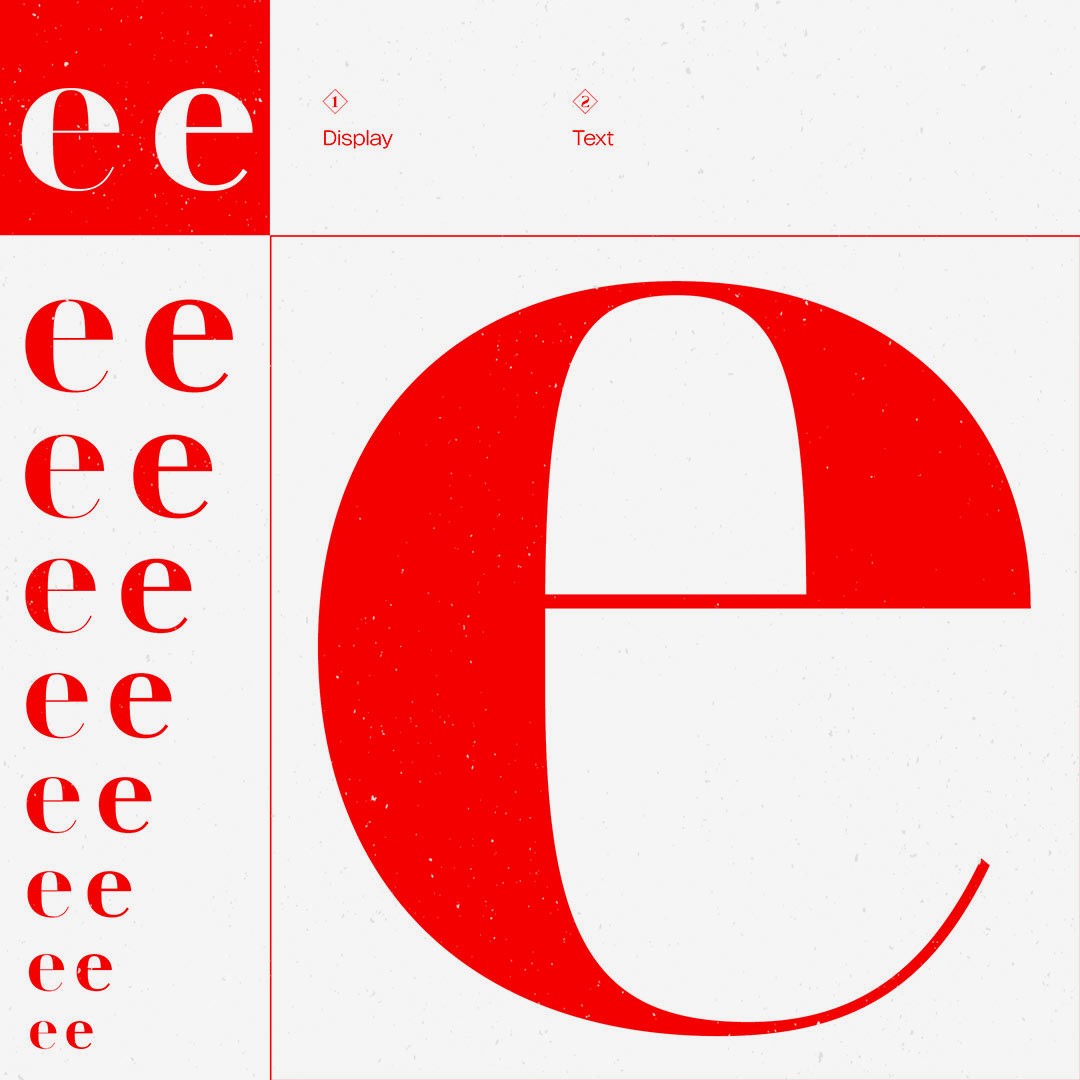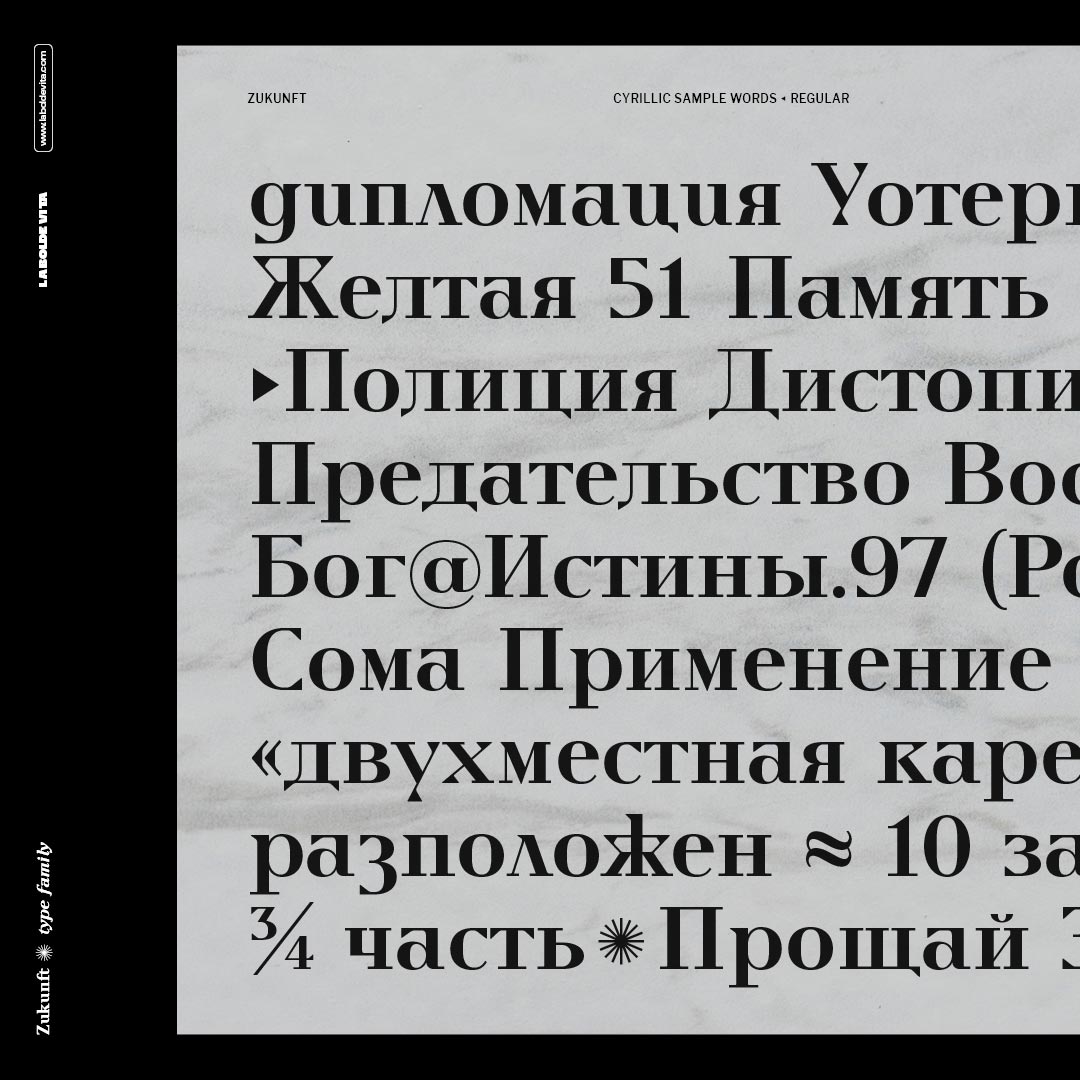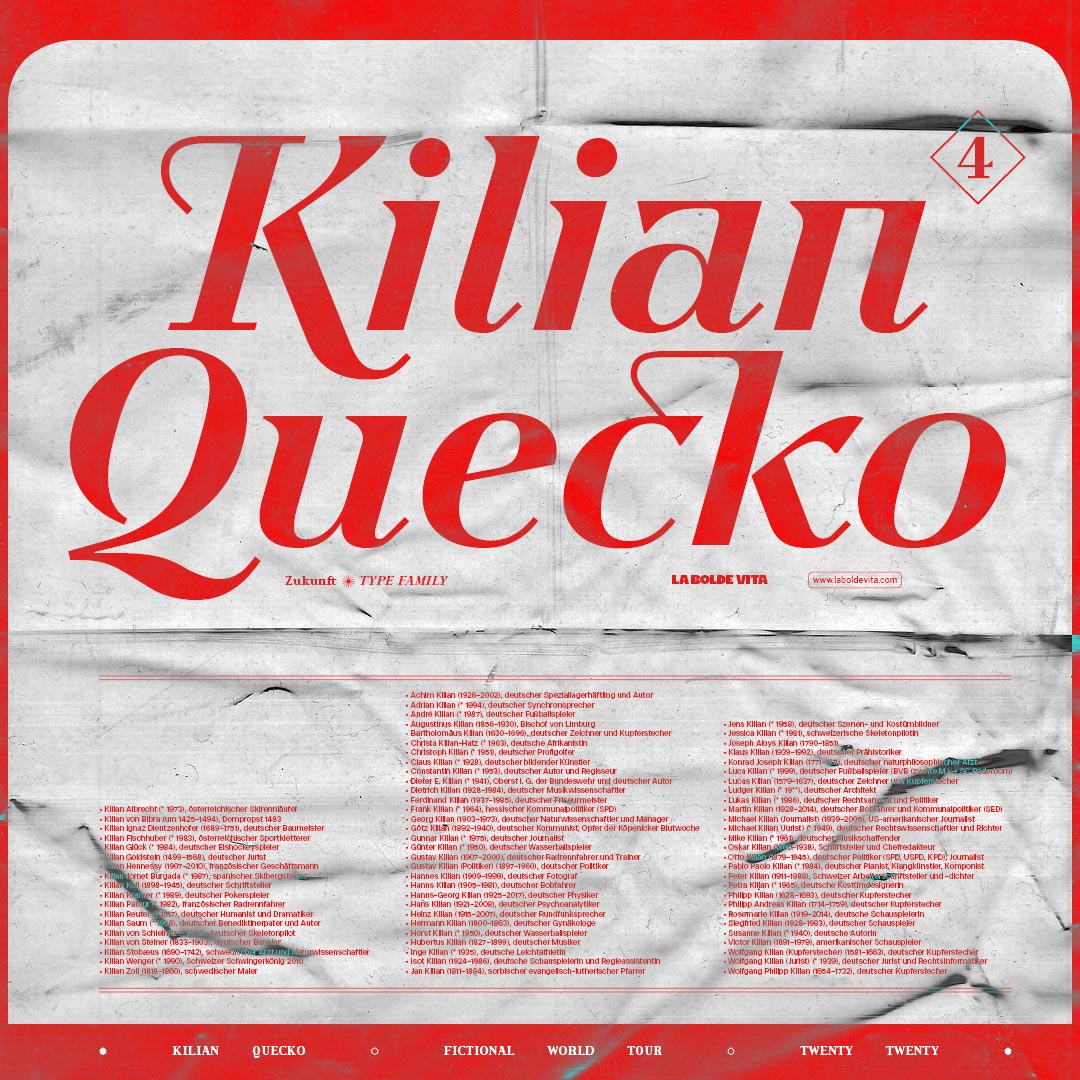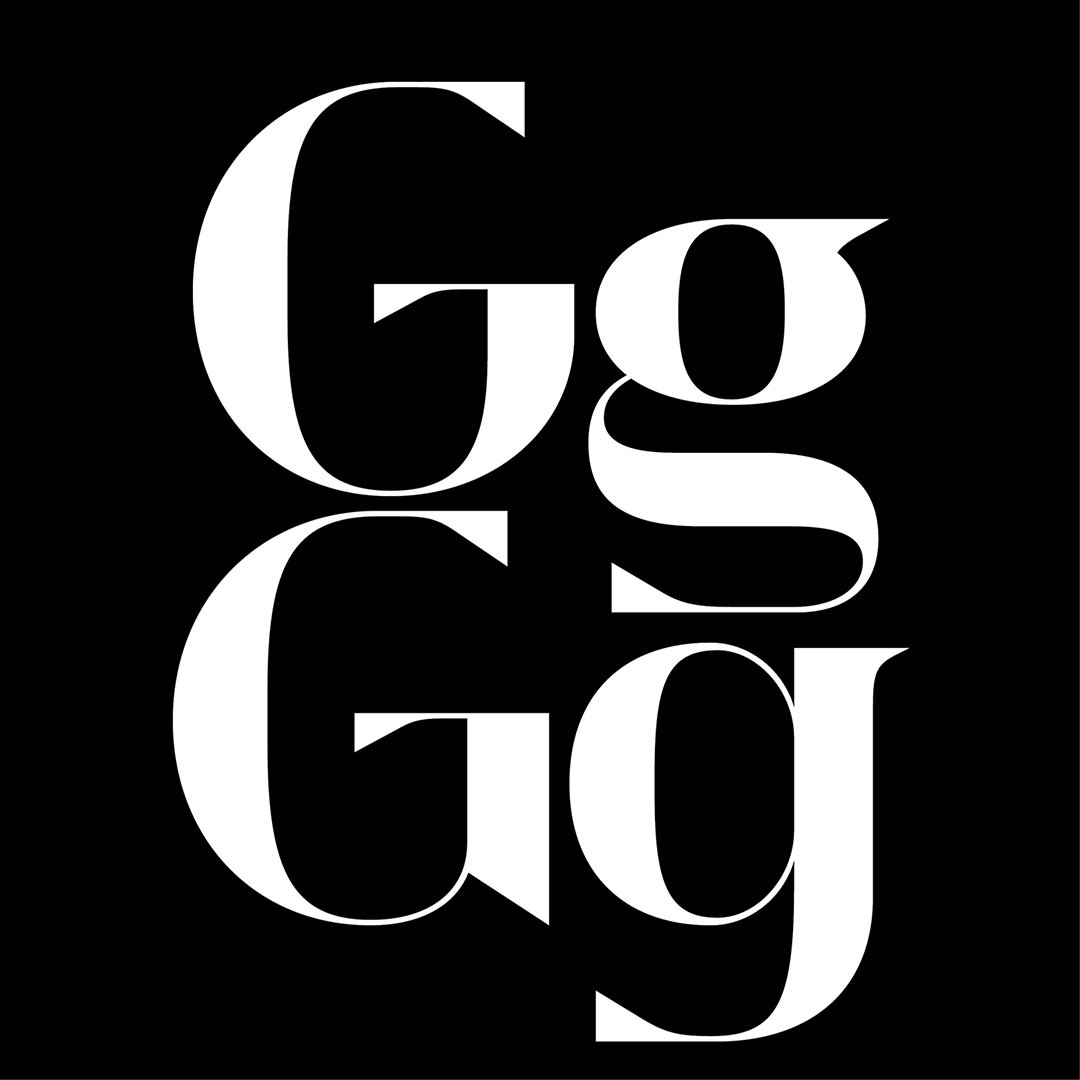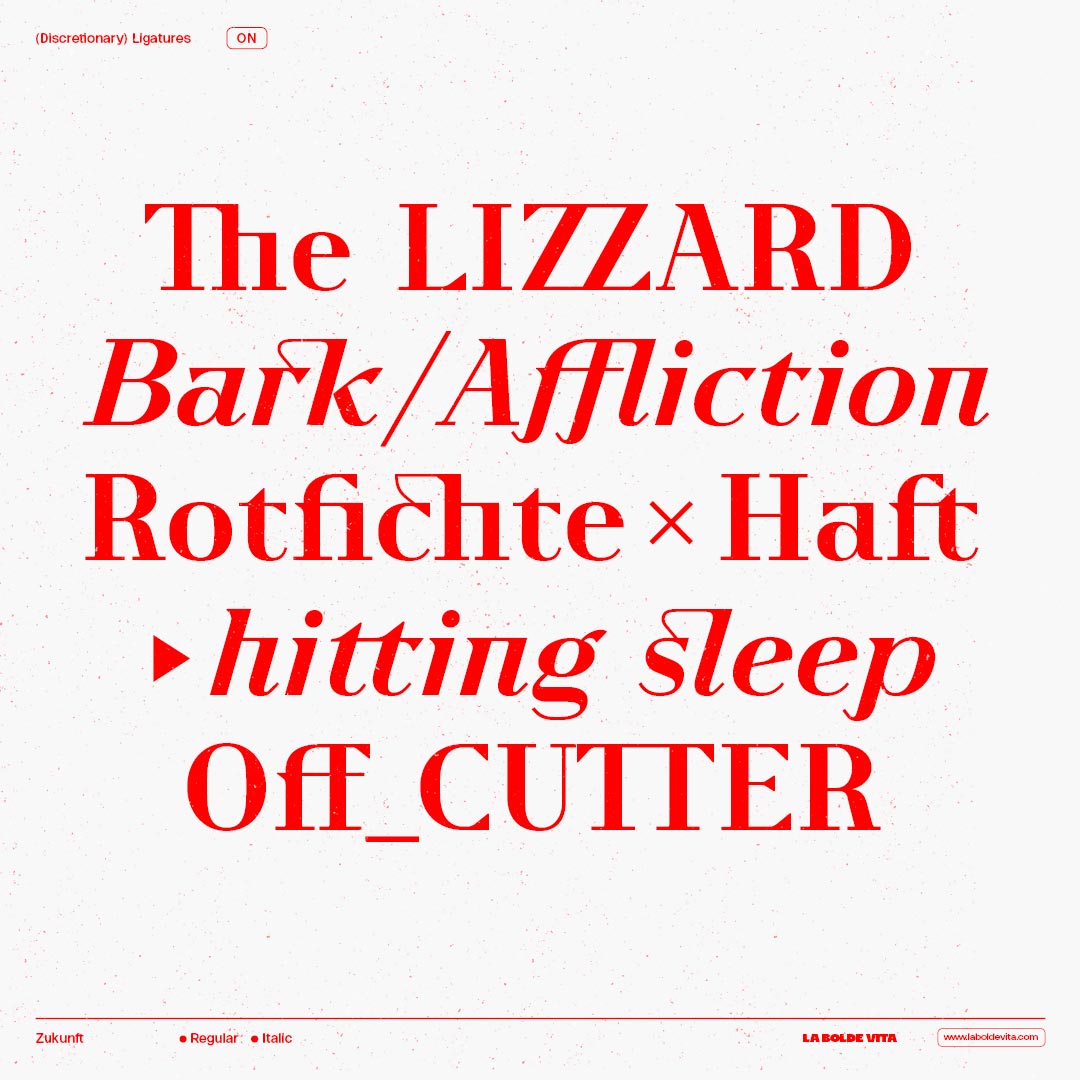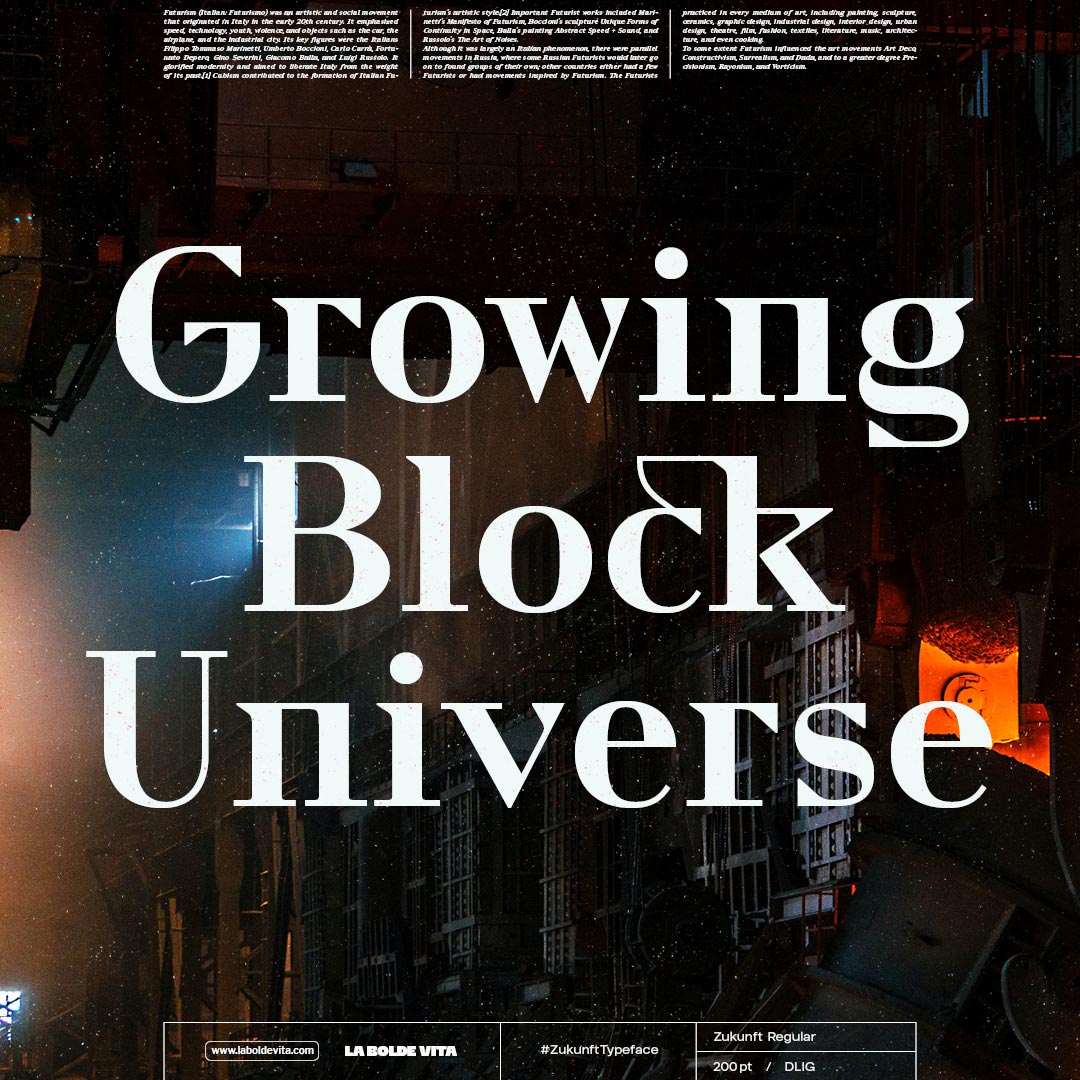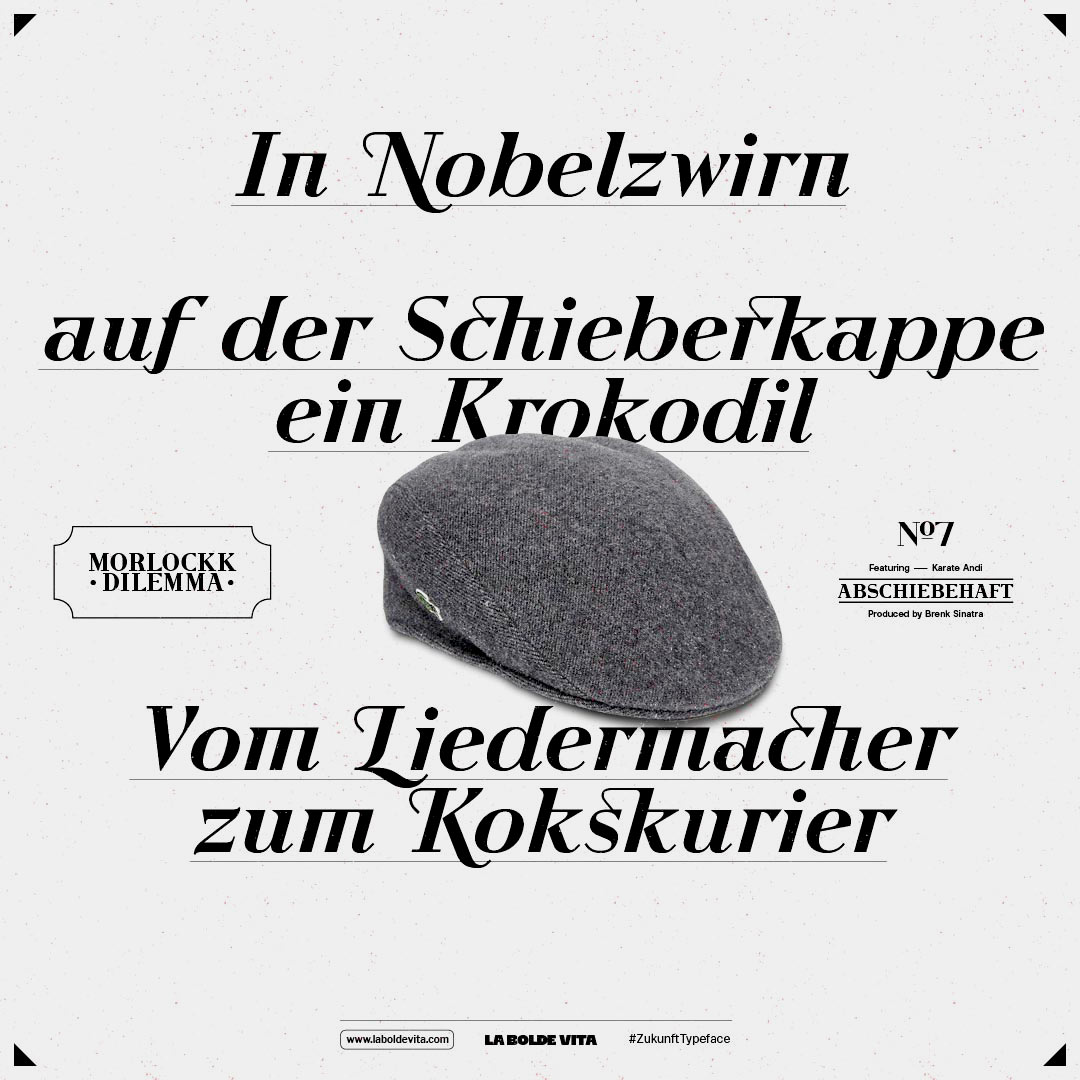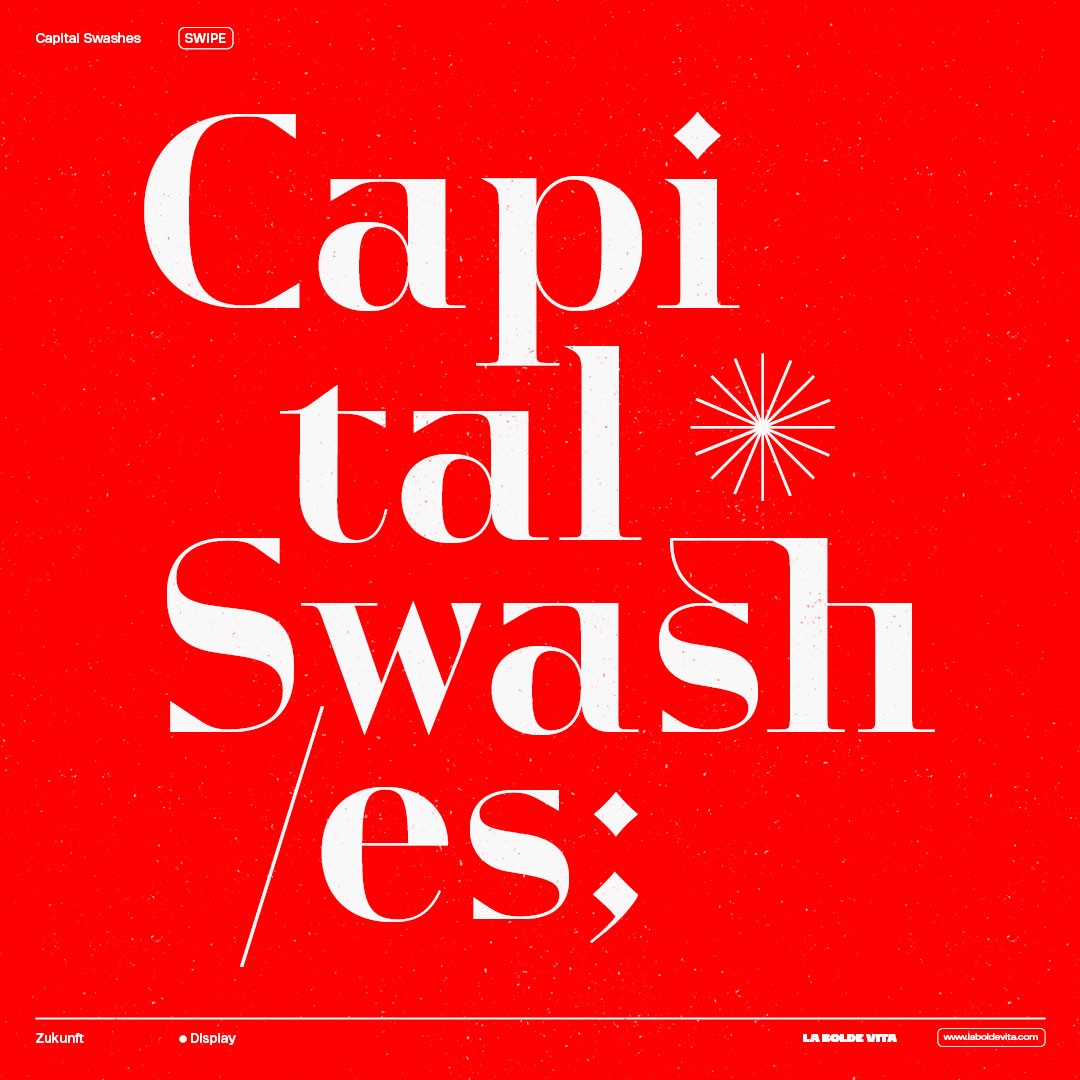
The three styles of Zukunft below each other
The Zukunft type family is an homage to classic didone typefaces. Though using traditional proportions, the design explores a more futuristic approach; the letters overall seem more digitally created, featuring triangular serifs, right angles and strict horizontal lines.
Besides the Regular style, suitable for body copy, the Italic brings back some flow and warmth, making it a good decorative companion. And then there's the display cut; with a high contrast and sharp serifs this is the perfect choice for headlines and posters.
Compared to the rest of our designs, Zukunft is a rather conventional but versatile typeface you can probably use for a wider range of projects. Wether short paragraphs, big titles or branding work, the diverse styles will fit and ensure a unique look. Don't forget to use the numerous alternates for letters and figures, as well as special symbols and italic capital swashes to make use of the full potential of Zukunft!
Zukunft
Regular Italic Display
Zukunft comes with useful standard and decorative discretionary ligatures, capital swash letters (for the Italic) and some alternate letter forms. Besides that you'll get contextual alternates, case sensitive forms and a variety of figures for usage in your editorial designs.
Zukunft comes with 876 glyphs, covering the Latin Extended-A Unicode Range, Cyrillic Script and various alternate shapes, capital swashes and symbols for impactful editorial usage.
Covering the Latin-Extended-A Unicode range and including some additional accented glyphs, Zukunft supports most modern Latin languages. Plus, Cyrillic script with localized forms is supported — therefore you can use Zukunft in up to 250 languages! If you still think your language isn't supported, you can look up the full list below or in the specimen.
• the letter "e" in detail and comparison of text and display styles of Zukunft
• a closeup of cyrillic sample words of Zukunft Regular on a black and white print
• a red on white specimen poster with a big headline in Zukunft Italic featuring swashes and discretionary ligatures
• Alternate letters of upper- and lowercase letters "g" in direct comparison
• sample words showing discretionary ligatures of Zukunft in red on white textured paper
• three big sample words set in Zukunft Regular in white on a cinematic background image
• a lyrical citation set in Zukunft Italic in a black and white composition
• Huge letters from Zukunft Display in white on bright red background with fine lines